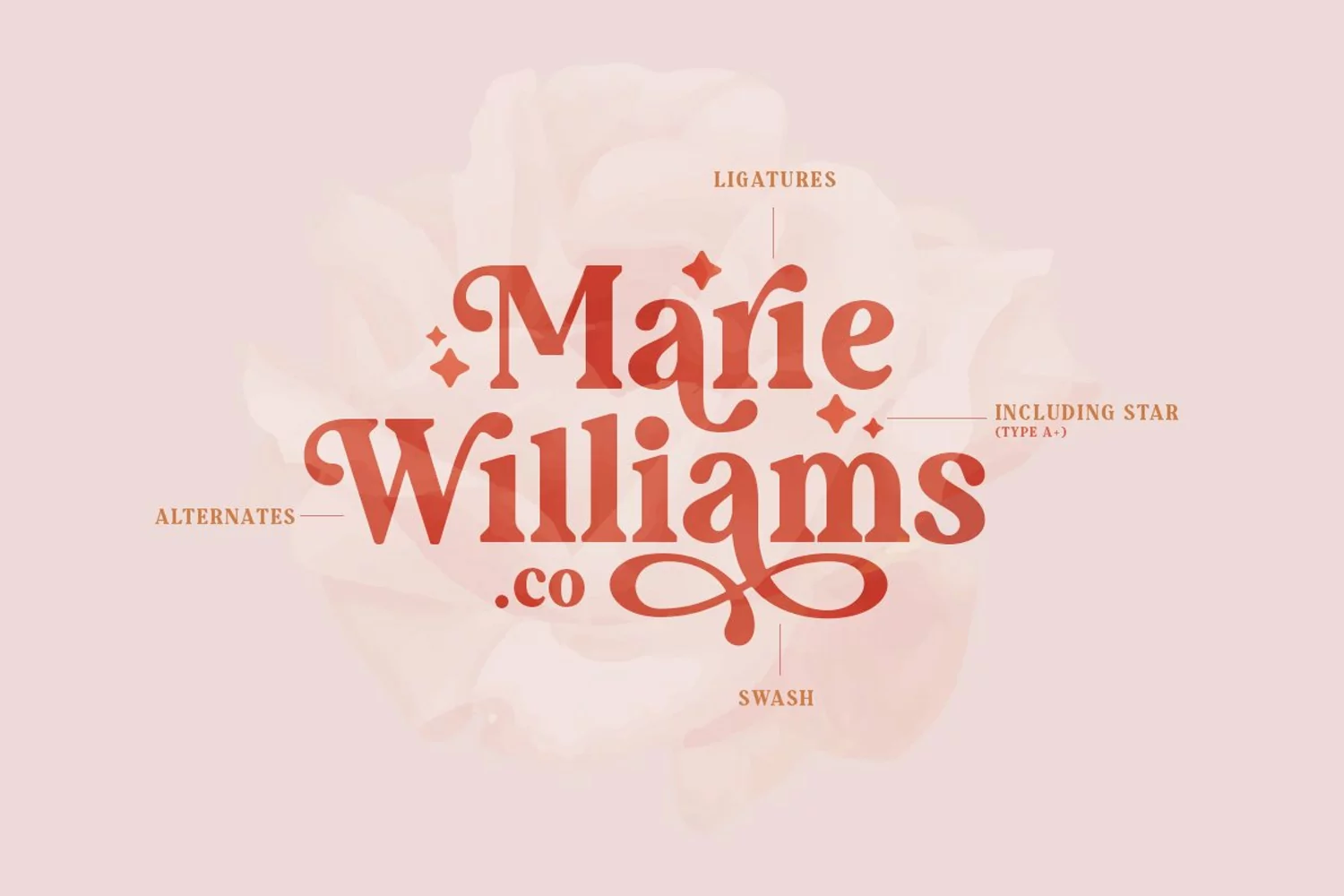
Augillion is a modern and bold serif with a bunch of ligatures and alternates that will make your presentation or logo even more stunning and stand out! Augillion also support Multi Language. and already PUA Encoded! Including a special character "✦", just type A+ to access it!